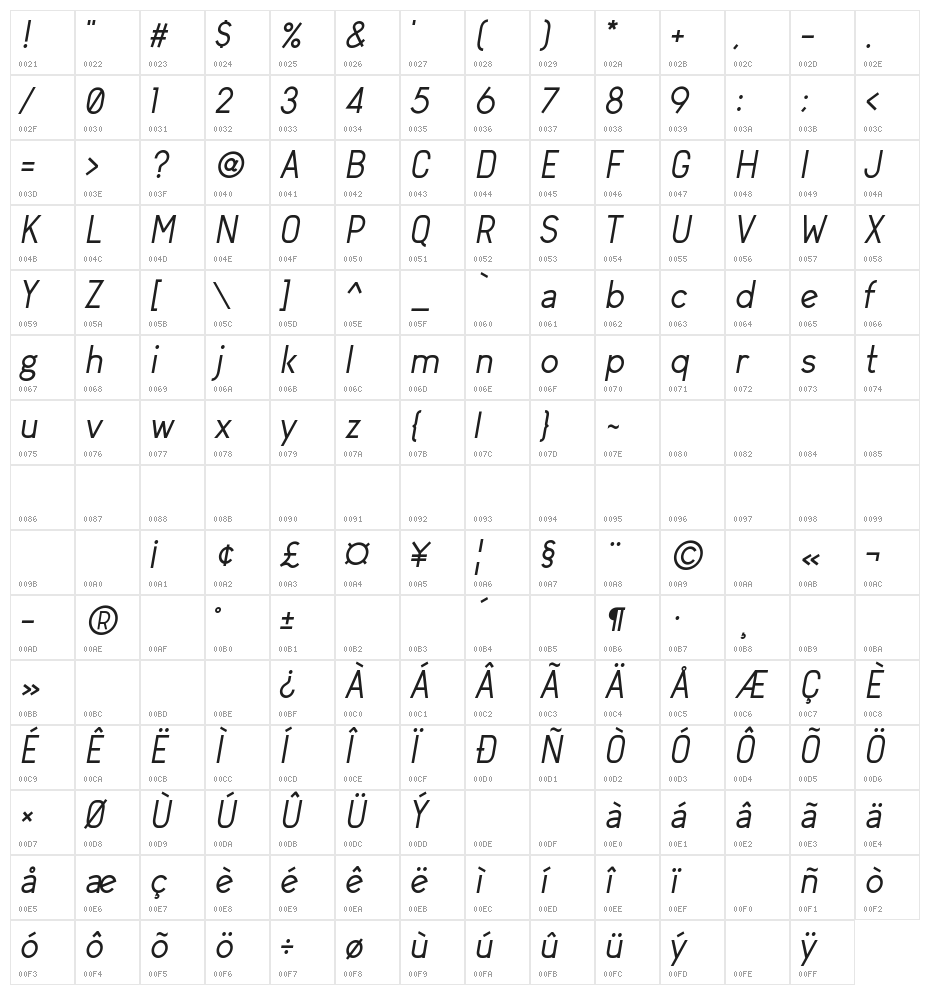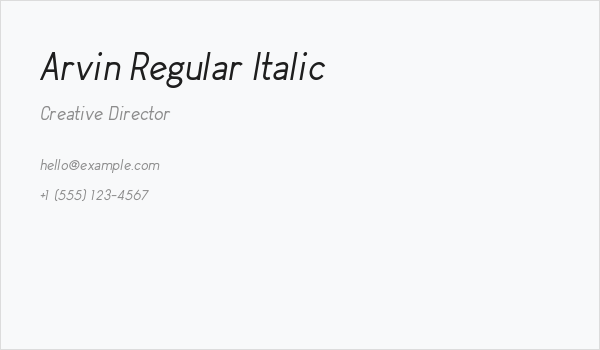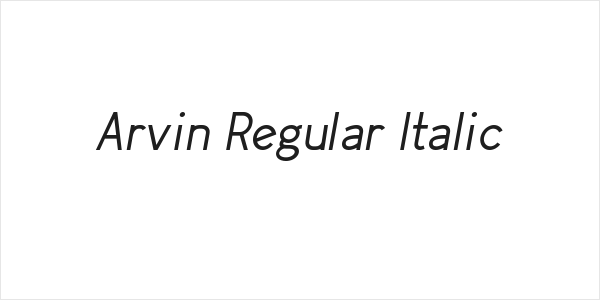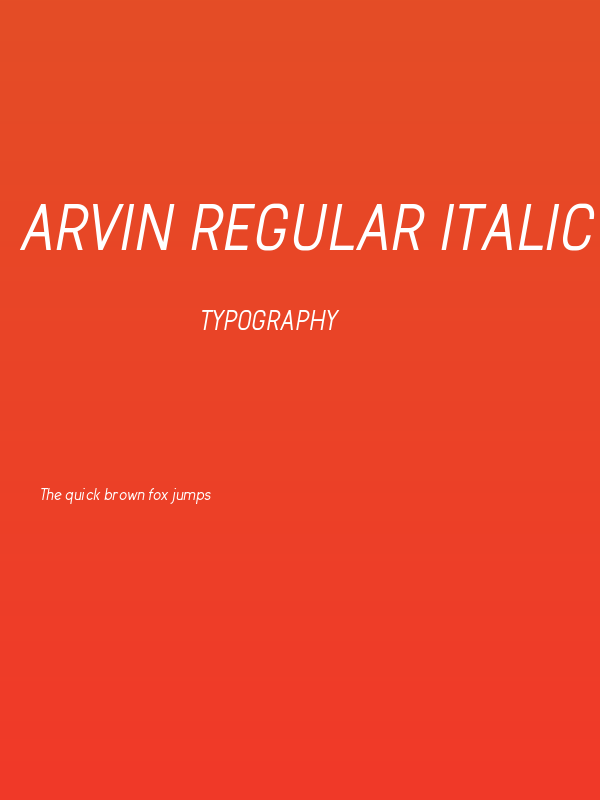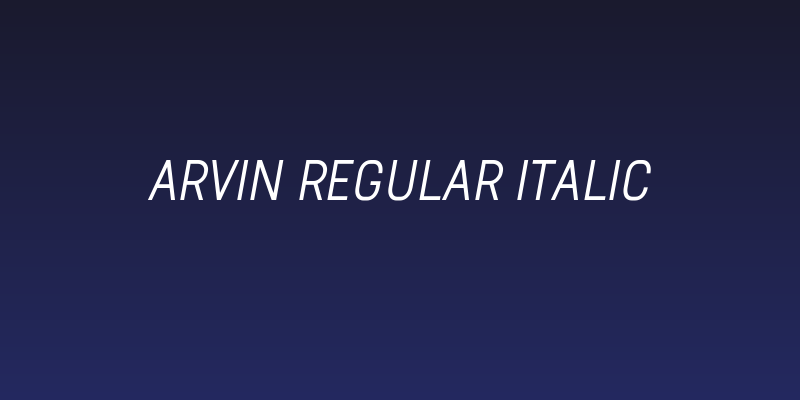
Arvin Regular Italic Font
Arvin Regular Italic Description
This font features a sleek and modern design with a slight italic slant, giving it a dynamic and forward-moving appearance. The characters are clean and well-defined, with a consistent stroke width that maintains readability across various sizes. The uppercase letters are tall and commanding, while the lowercase letters are rounded and approachable, creating a harmonious balance. The numerals are clear and distinct, making them suitable for both text and numerical data. The special characters are thoughtfully designed to complement the overall aesthetic, ensuring versatility in usage.
| Proposed Projects | Ideal for branding, advertising, and editorial design projects where a contemporary and professional look is desired. |